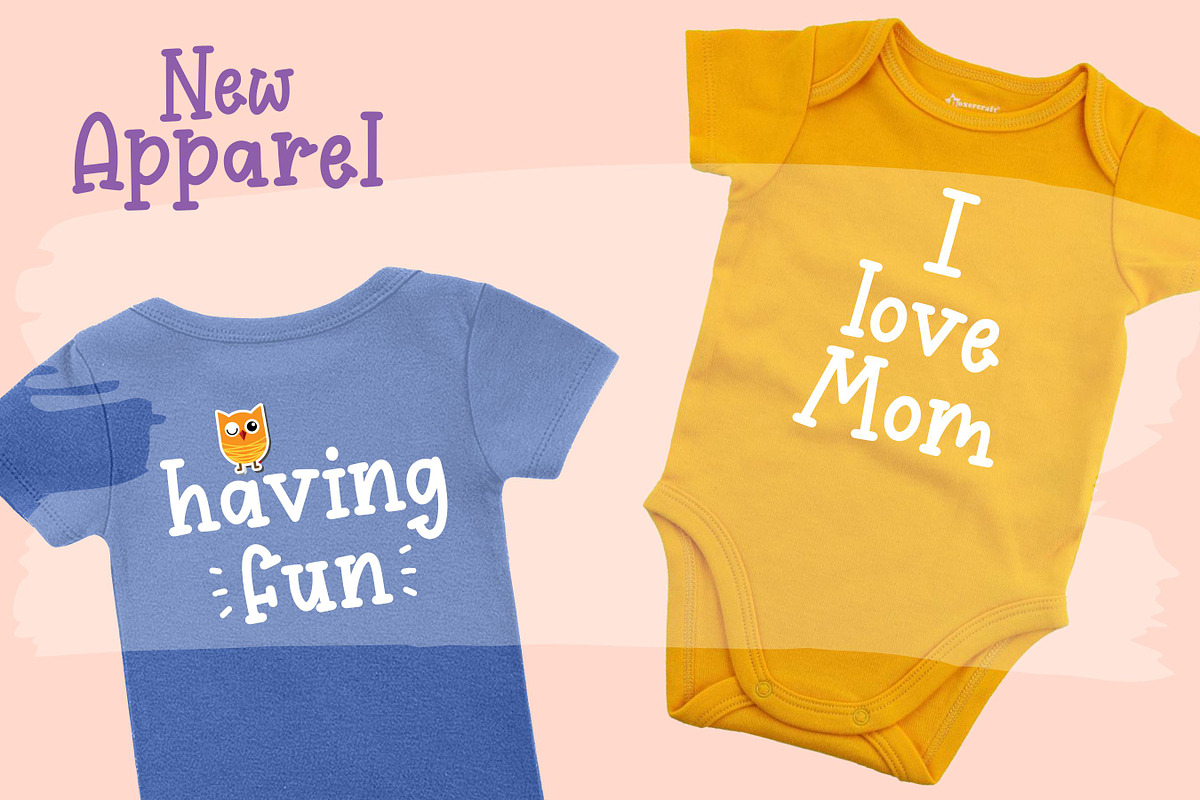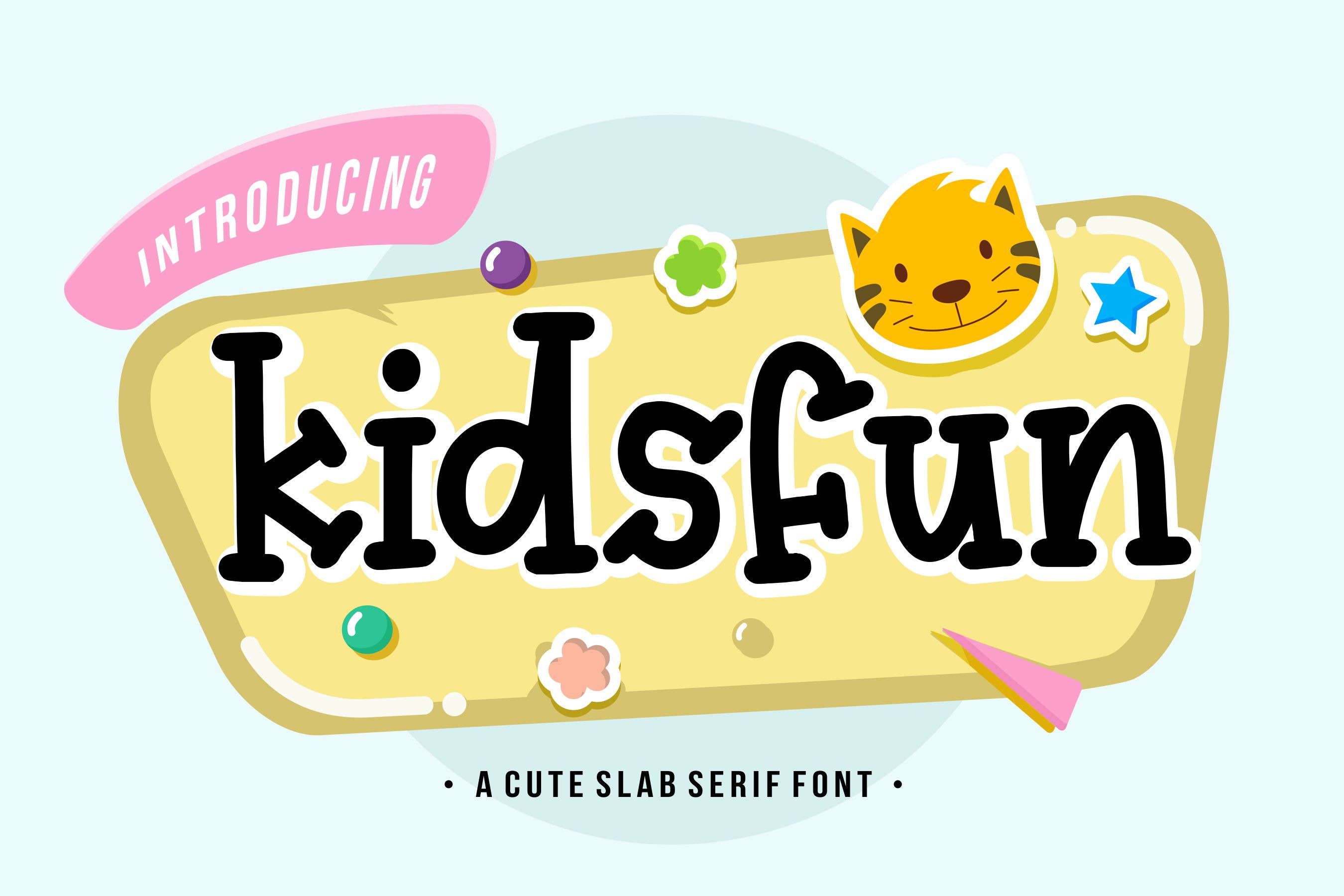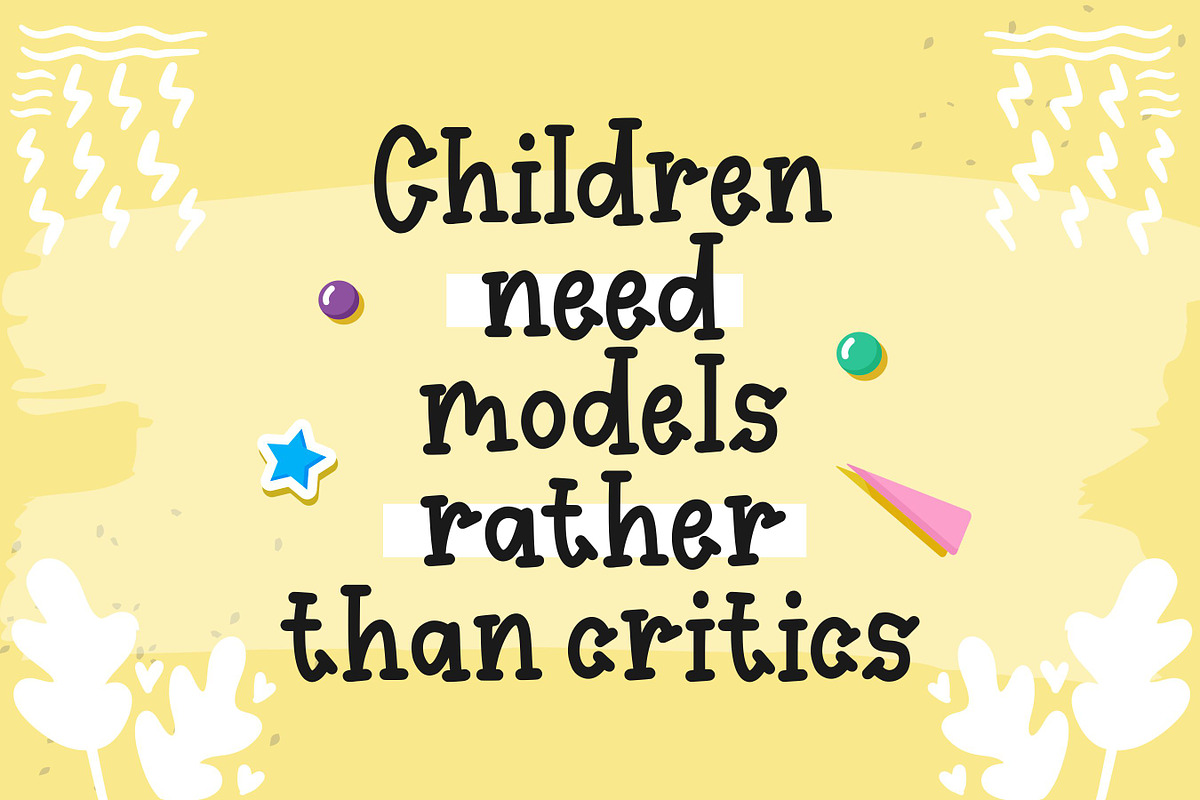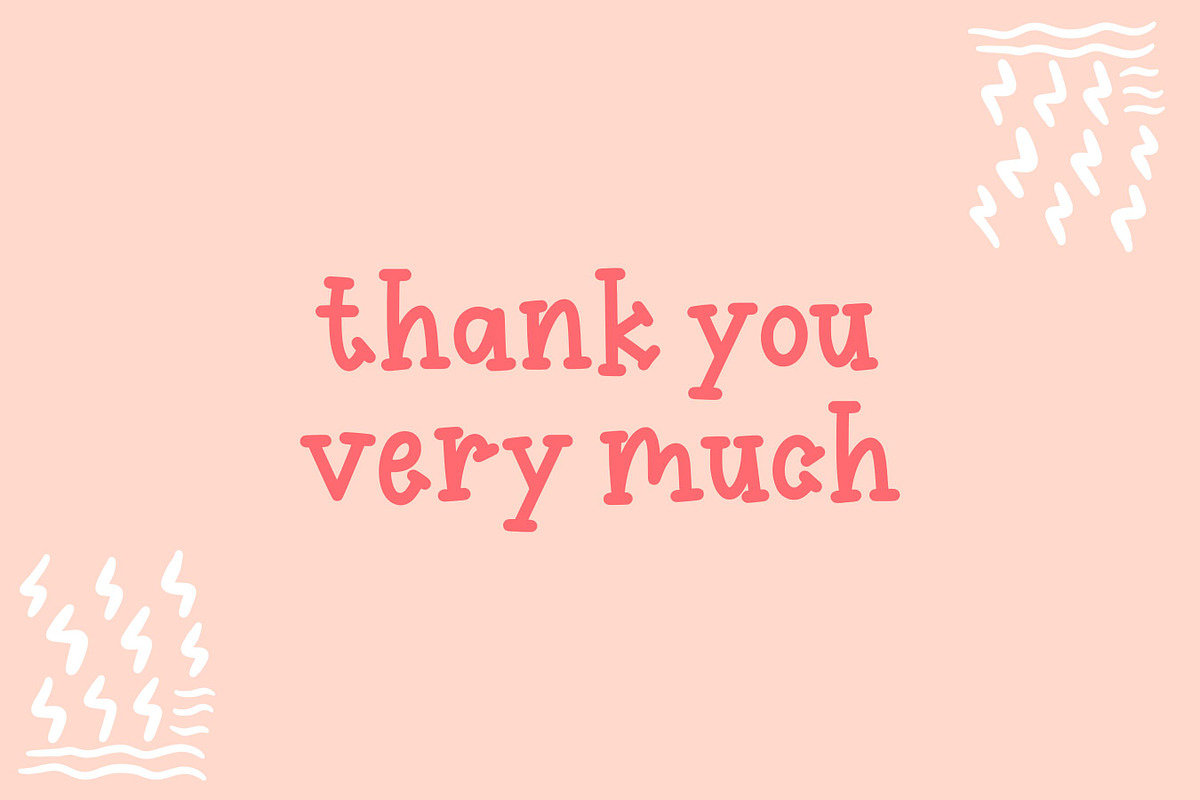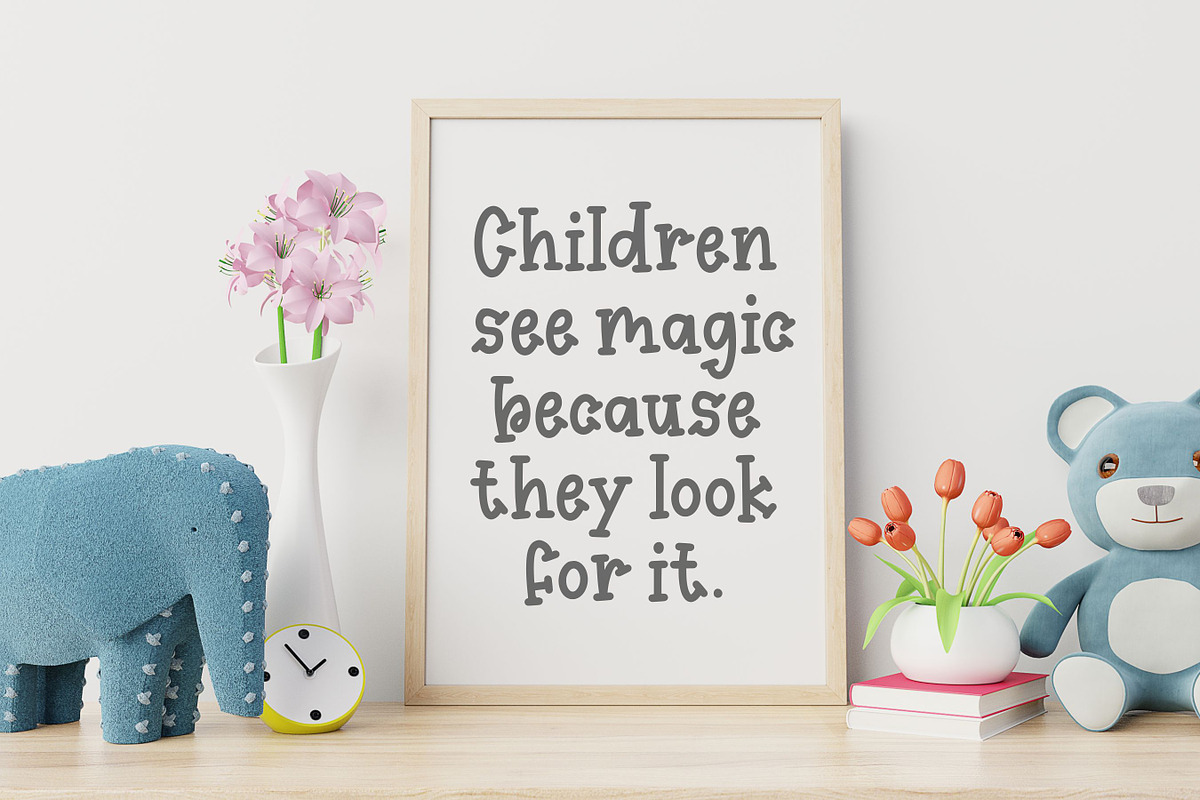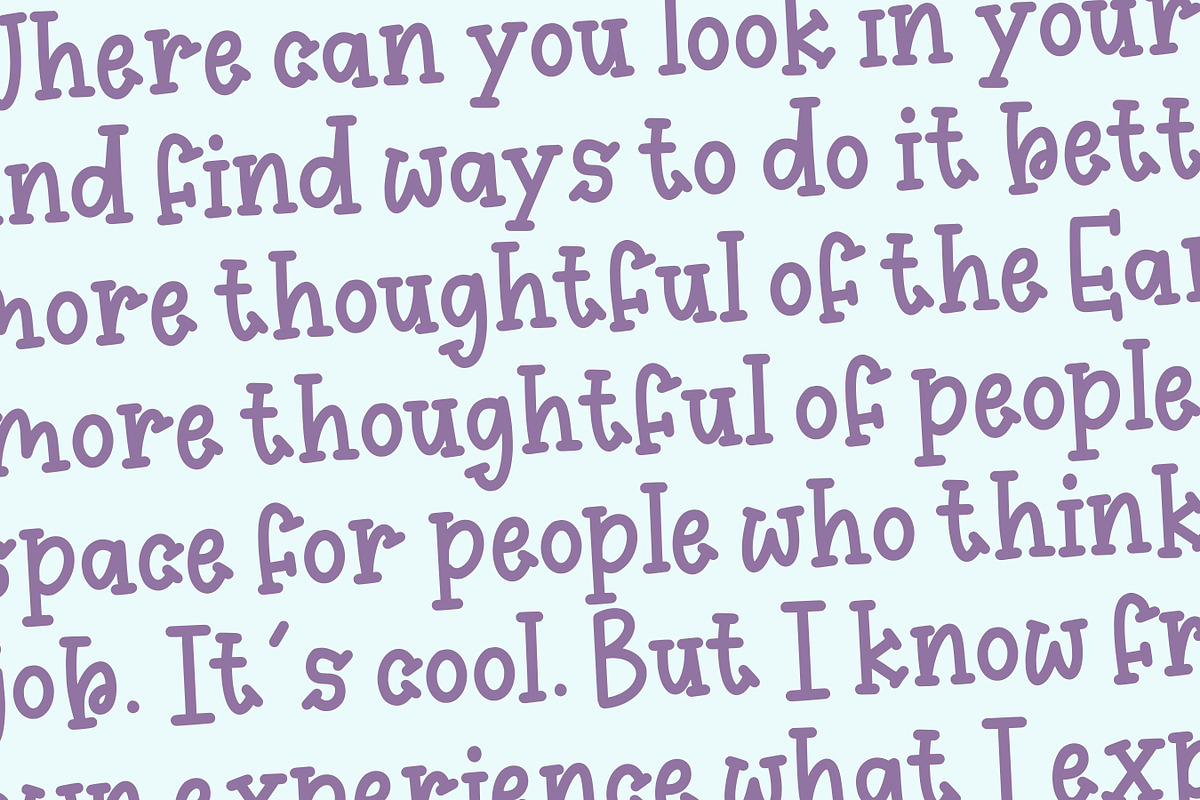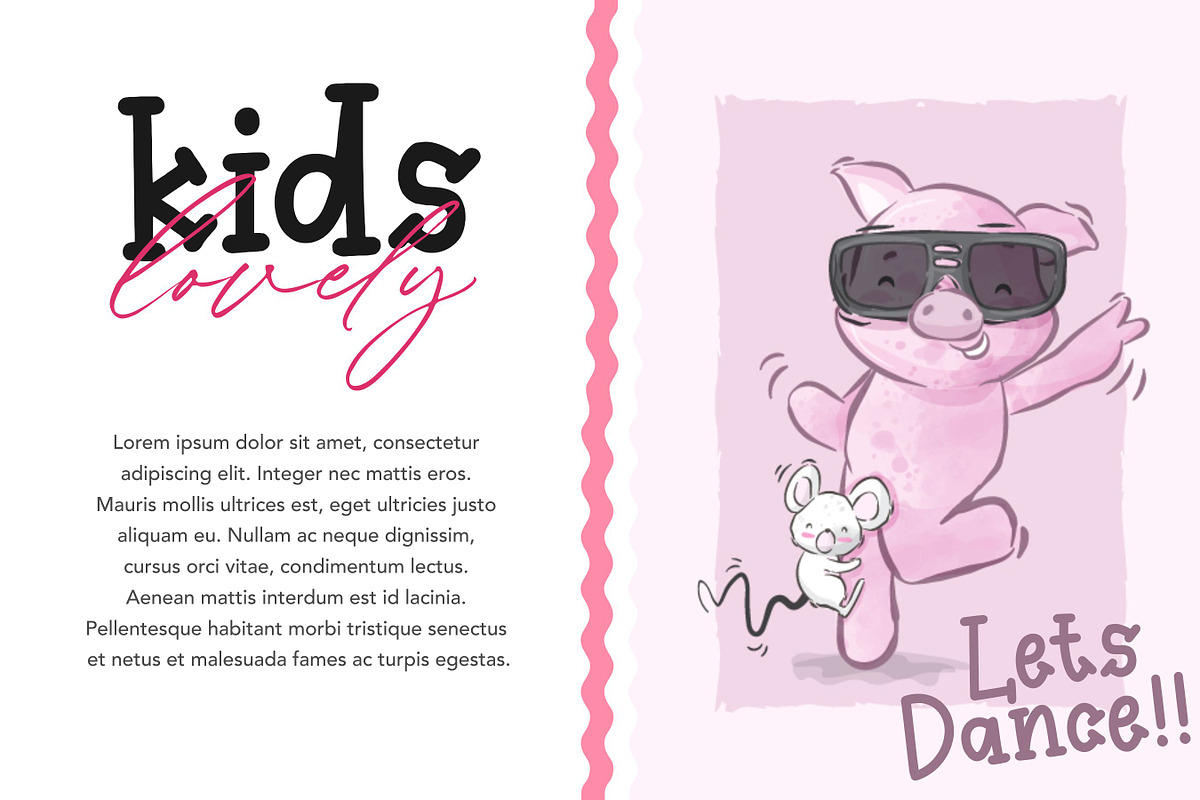
Kidsfun - Cute Slab Serif Font
Proudly Present, Kidsfun Font
Kidsfun is a whimsical display font. It is perfect for product packaging, branding projects, magazine, social media posts and much more. Get creative with its childlike playfulness, and use it to brighten up any kids and school project!